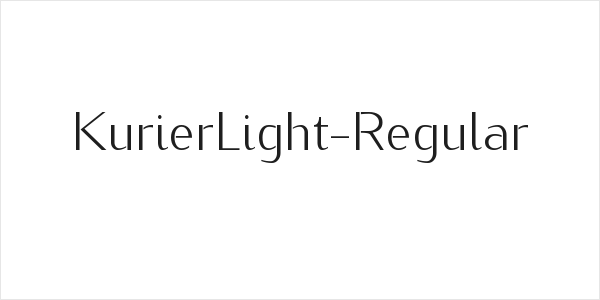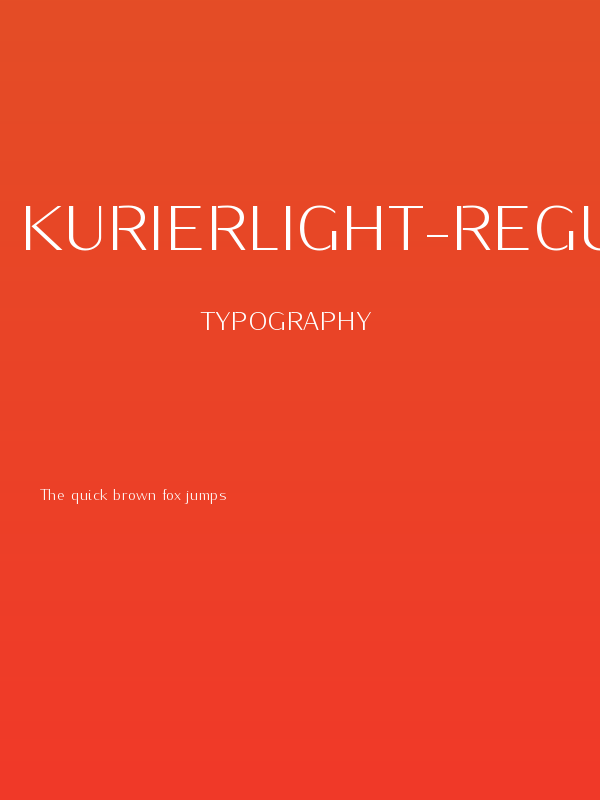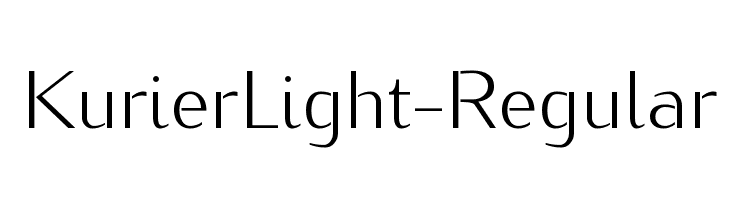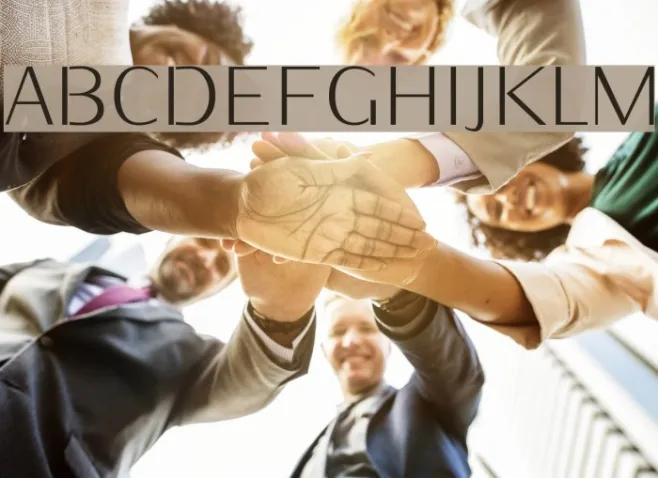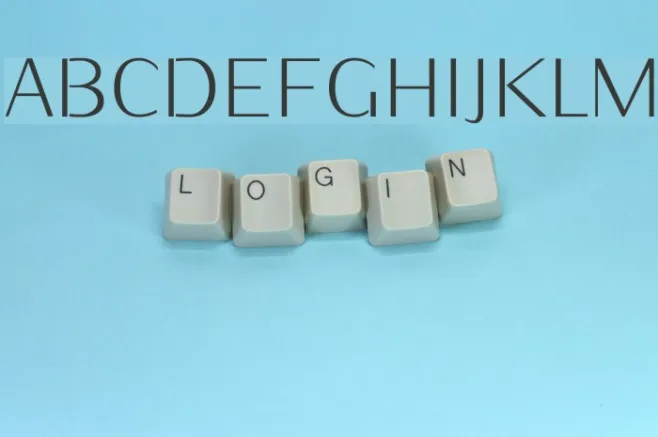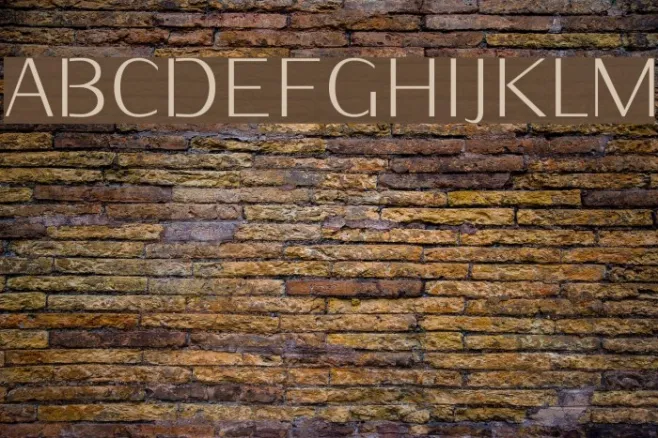
KurierLight-Regular Font
KurierLight-Regular Description
This font features a clean and modern design with a sans-serif style. The characters are evenly spaced and exhibit a uniform stroke width, contributing to its readability and versatility. The uppercase letters are bold and assertive, while the lowercase letters maintain a consistent flow, making it suitable for both headlines and body text. The numerals are clear and distinct, ensuring legibility in various contexts. Special characters are well-defined, adding to the font's comprehensive utility. Overall, this font's simplicity and elegance make it a great choice for contemporary design projects.
| Proposed Projects | Ideal for branding, editorial design, websites, and corporate materials. |